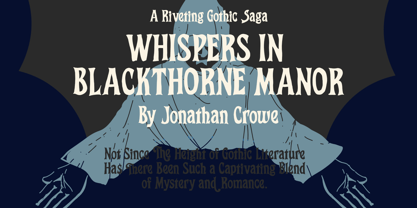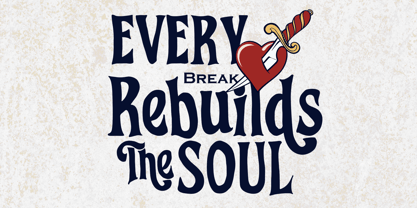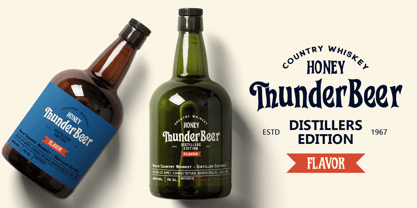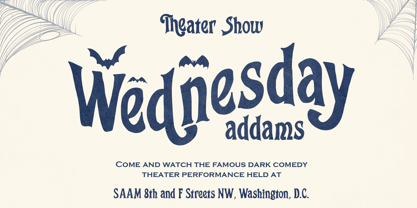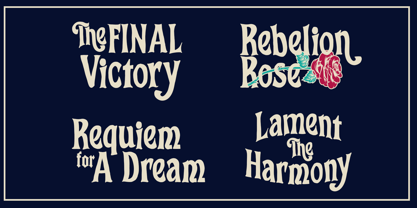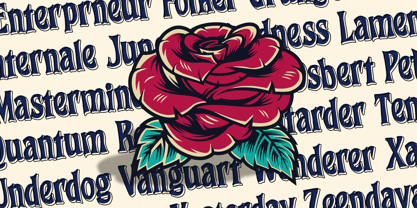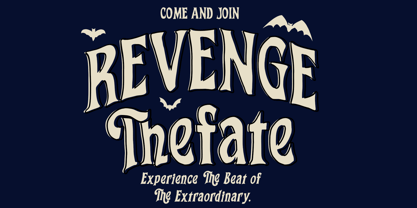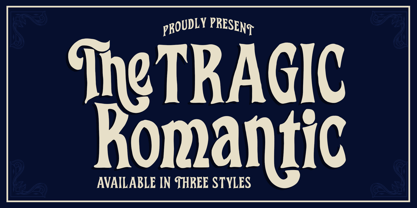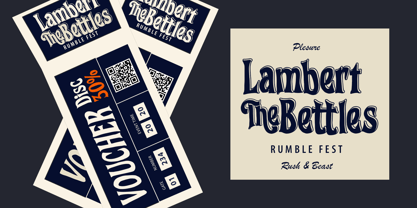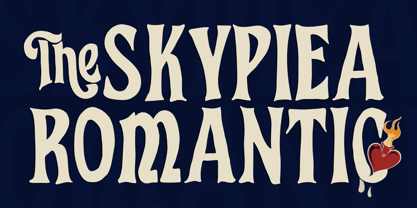
The Tragic Romantic
The The Tragic Romantic Font Family was designed by Naufal Paramata and published by Youngtype. The Tragic Romantic contains 3 styles and family package options.
The Tragic Romantic is a hand brush font made with brush and ink which is equipped with 3 models Regular, Italic,Outline. This typeface is ideal for use in bold watercolor designs or handwritten styles, such as blog titles, posters, wedding elements, t-shirts, clothing, book covers, business cards, greeting cards, branding, merchandise, etc.
Contains full set :
Uppercase
Lowercase
Ligatures
Alternates
number
multilingual support.